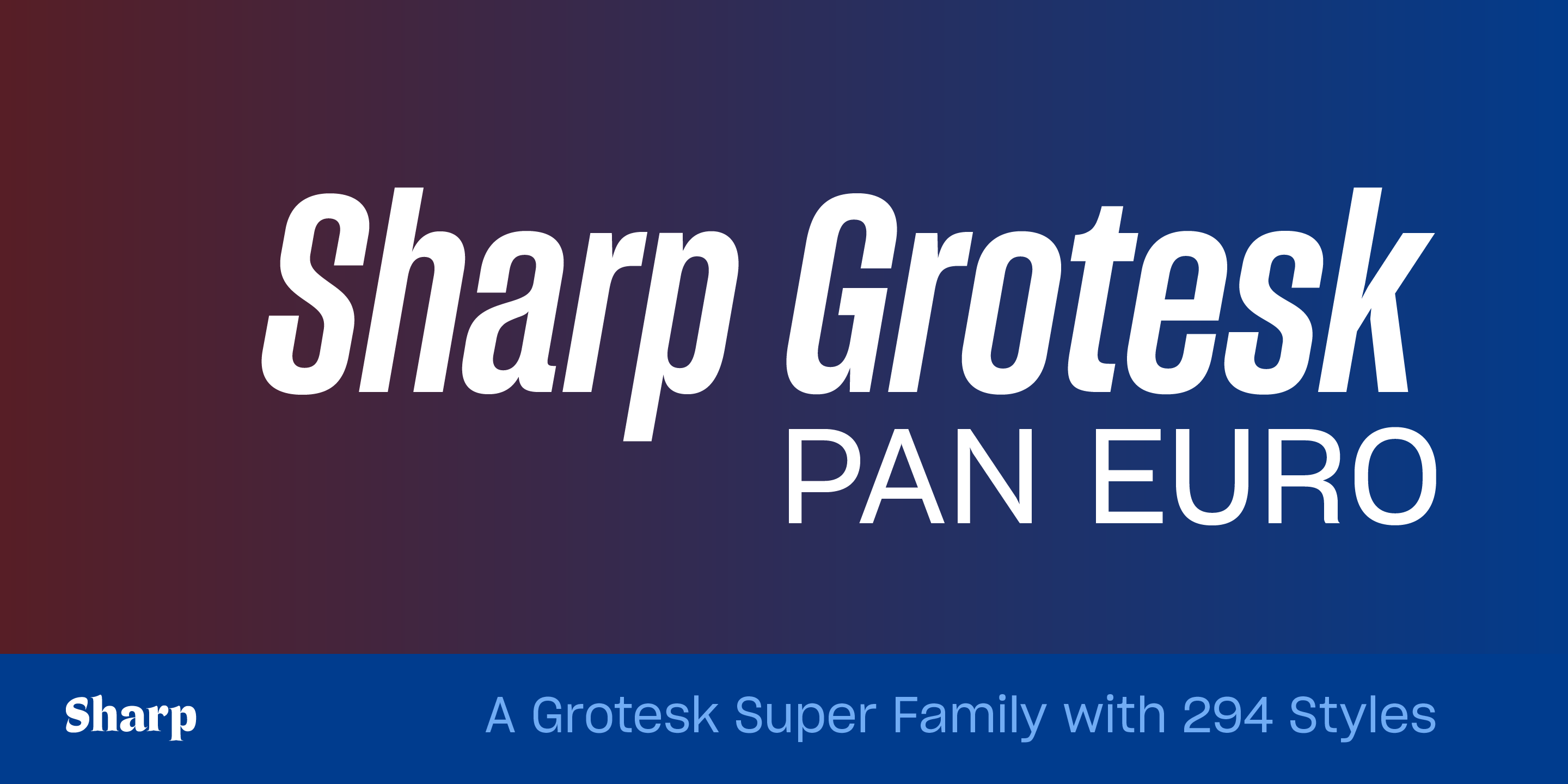
The Sharp Grotesk Paneuropean Font is a powerhouse of a typeface, renowned for its incredible versatility, modern aesthetic, and expansive character set that supports a vast array of European languages. Its clean, impactful sans-serif forms, often with subtle geometric precision and a strong presence, make it an excellent choice for global corporate branding, international editorial design, multi-language digital interfaces, large-scale advertising campaigns, and sophisticated web development. Whether you’re crafting a consistent brand identity across continents or designing a complex publication with diverse linguistic needs, this font will imbue your project with a sense of cutting-edge professionalism and undeniable adaptability.
What makes the Sharp Grotesk Paneuropean Font so exciting is its unparalleled breadth and meticulous design, ensuring legibility and aesthetic consistency across numerous scripts. It's perfect for designers who demand a singular typeface solution for complex multilingual projects, eliminating the need for disparate font families. This font stands out by offering a harmonious blend of impact and readability, making any text it graces feel modern, authoritative, and incredibly precise. The comprehensive character set not only includes an extensive range of Latin characters with their various diacritics but also typically supports Cyrillic and Greek, making it a true workhorse for international communication.
The Sharp Grotesk Paneuropean Font typically boasts an extraordinarily comprehensive family to support diverse design needs, offering an unmatched level of typographic flexibility. While specific variations may depend on the font package, you can generally expect to find an extensive range of weights, from ultra-light to super-heavy, along with their corresponding Italic or Oblique styles. Beyond standard weights, this family often includes numerous widths (e.g., Condensed, Narrow, Regular, Extended, Wide), providing designers with precise control over space and visual impact. Additionally, premium "Paneuropean" versions are packed with OpenType features, such as various figure styles (e.g., lining, old-style, tabular), small caps, ligatures, and a wide array of alternate characters, ensuring incredibly nuanced and custom typographic solutions across all supported languages. This robust family ensures that the Sharp Grotesk Paneuropean Font can be adapted to almost any design requirement, maintaining a consistent, powerful, and highly functional aesthetic throughout your global projects.